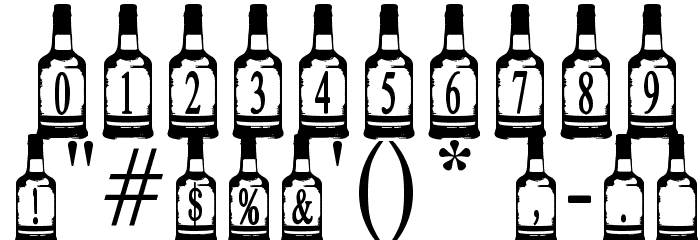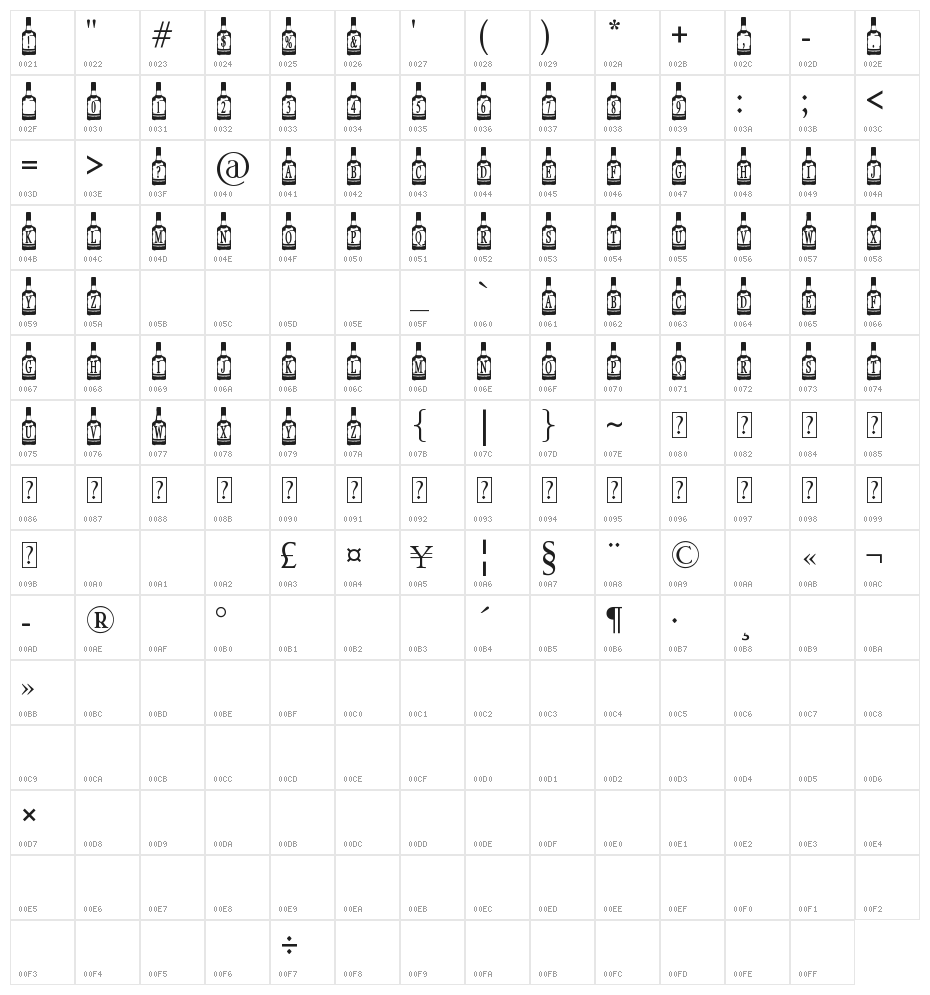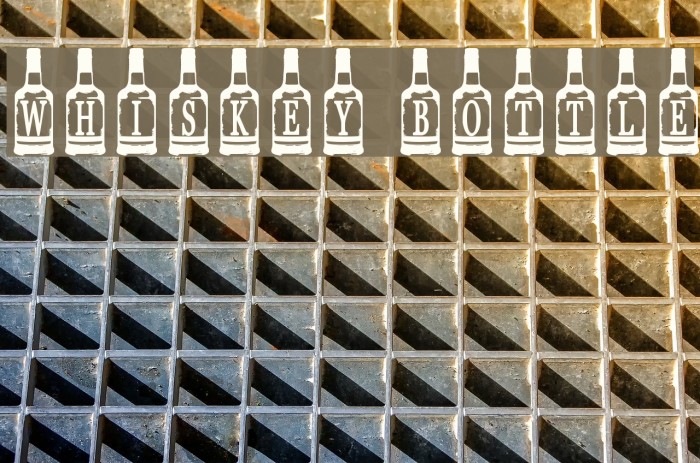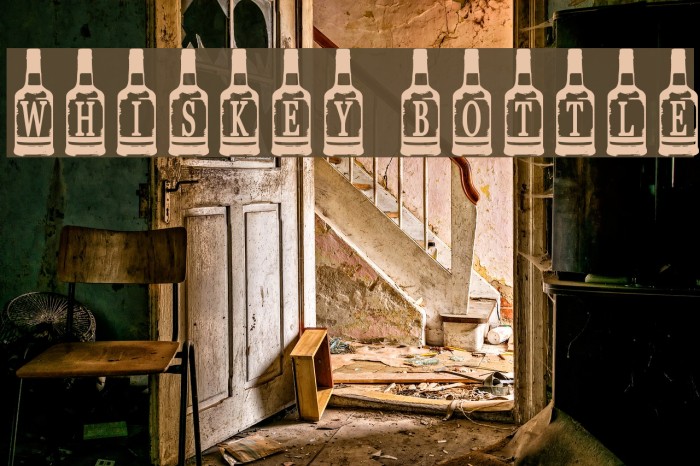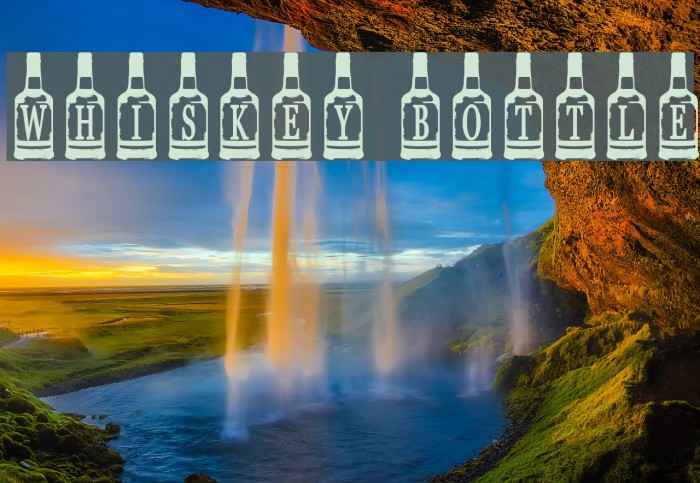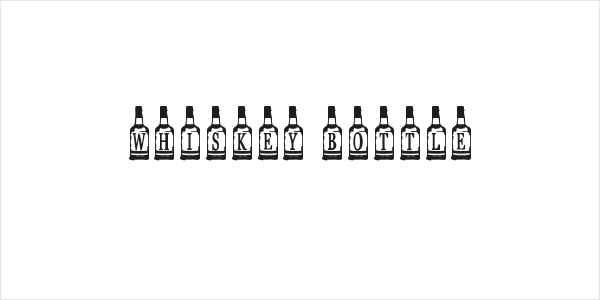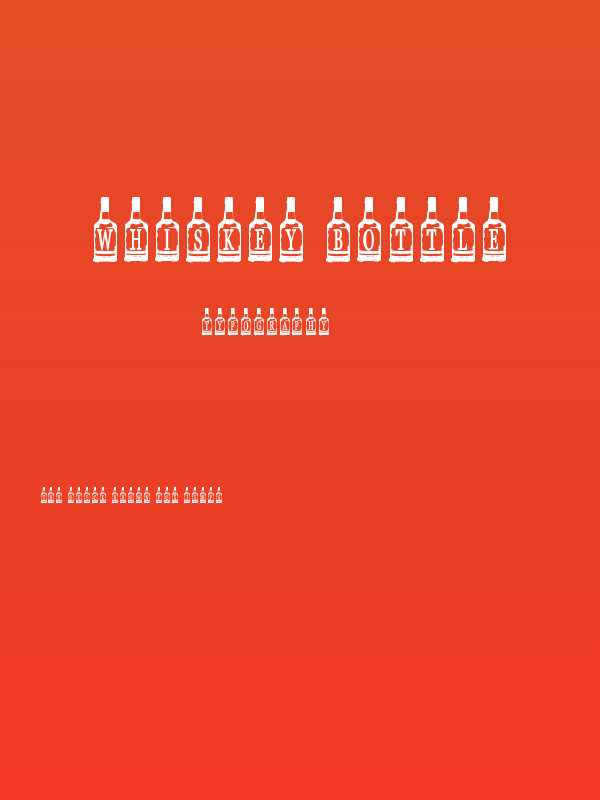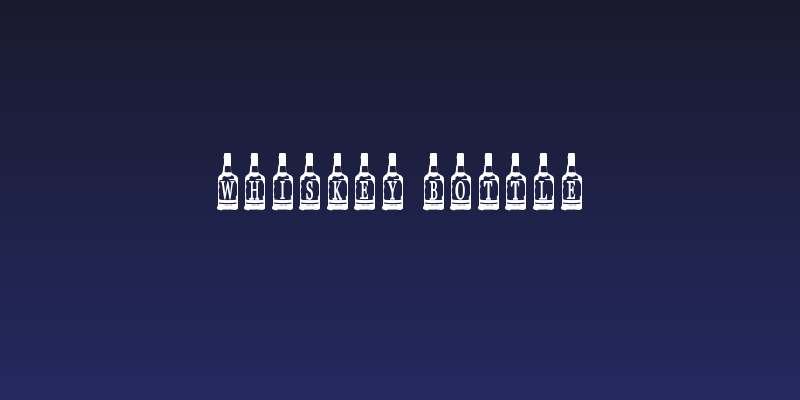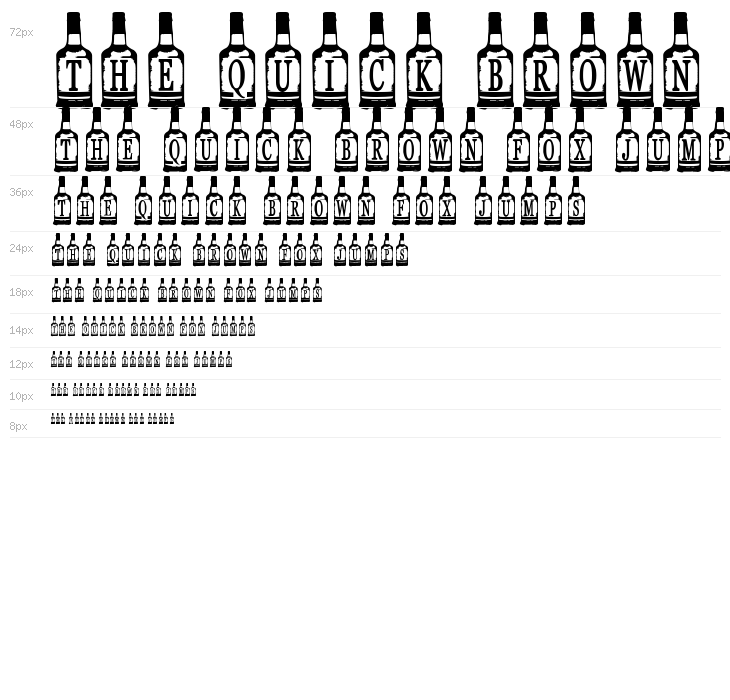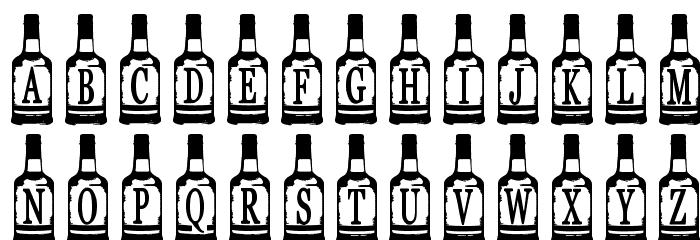
Whiskey Bottle Font
Whiskey Bottle Description
This unique font features characters encapsulated within the silhouette of a whiskey bottle, creating a distinctive and playful appearance. Each letter and number is centered within the bottle shape, maintaining a consistent and bold style. The font is highly decorative, with a strong emphasis on novelty and thematic design. The characters are evenly spaced within the bottles, which are uniformly sized, giving the font a cohesive and structured look. The boldness of the letters ensures readability while still maintaining the quirky and fun aesthetic of the bottle design. This font is perfect for projects that require a touch of whimsy and creativity, particularly those related to beverages, parties, or themed events.